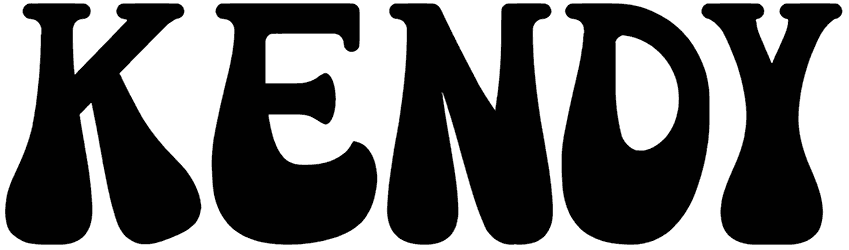
Kendy Font
In order to design high-end graphic content, every part of your work, including font, must be cohesive, and on this occasion, a marvelous, groovy font such as Kendy can be a viable option for designing graffiti, digital banners, street posters, illustrations, and stickers.